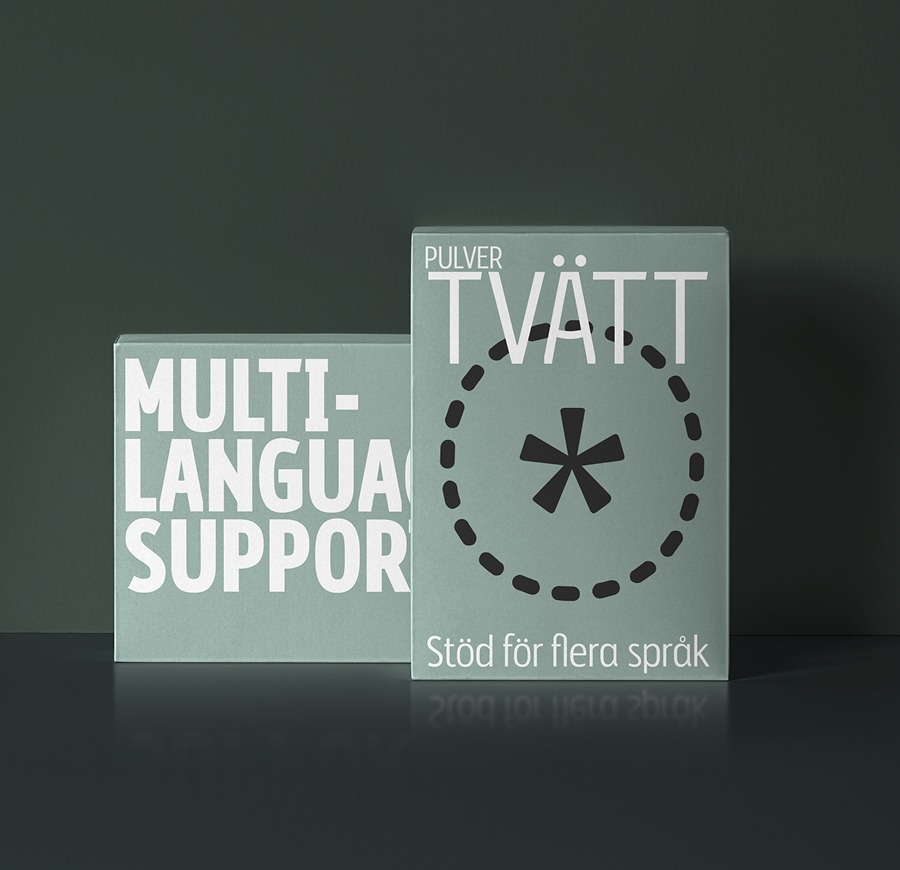
Orka Condensed Sans is a stylistic font developed within a set grid that creates harmony and form through elegant forms, for use at both text and display sizes. Orka Condensed is perfectly suited for headlines, large-format prints, brand identities, social media, advertising, editorial design, posters, magazines, logos, headings, body copy, and digital.
Abaliss Sans supports up to 87 different languages such as English, German, French, Turkish, Polish, Kurdish (Latin), Azerbaijani (Latin), Romanian, Dutch, Hungarian, Kazakh (Latin), Serbian (Latin), Czech, Swedish, Belarusian (Latin), Croatian, Slovak, Finnish, Danish, Lithuanian, Latvian, Slovenian, Irish, Estonian, Basque, Luxembourgian, Icelandic, and Vietnamese in Latin and other scripts.